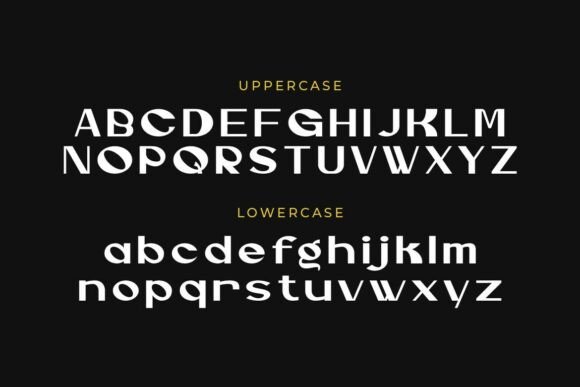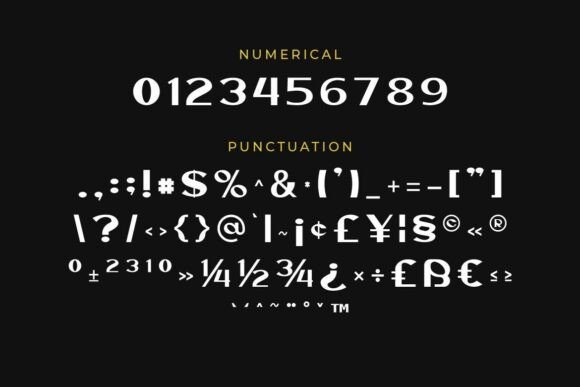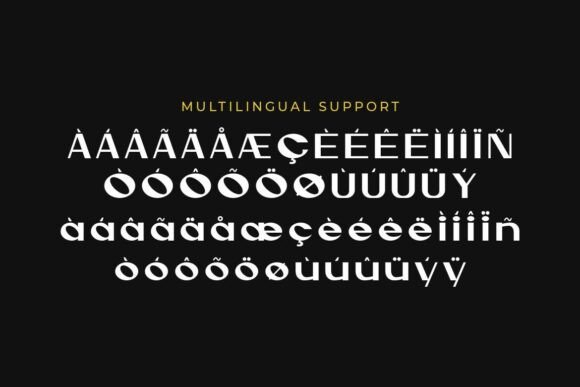
Introduction to Okle Font
Okle is a creative display typeface designed to bring bold personality and visual uniqueness to your designs.
With distinctive letterforms, expressive shapes, and a modern creative style, Okle helps your typography stand out in any composition .
Why Choose Okle Font?